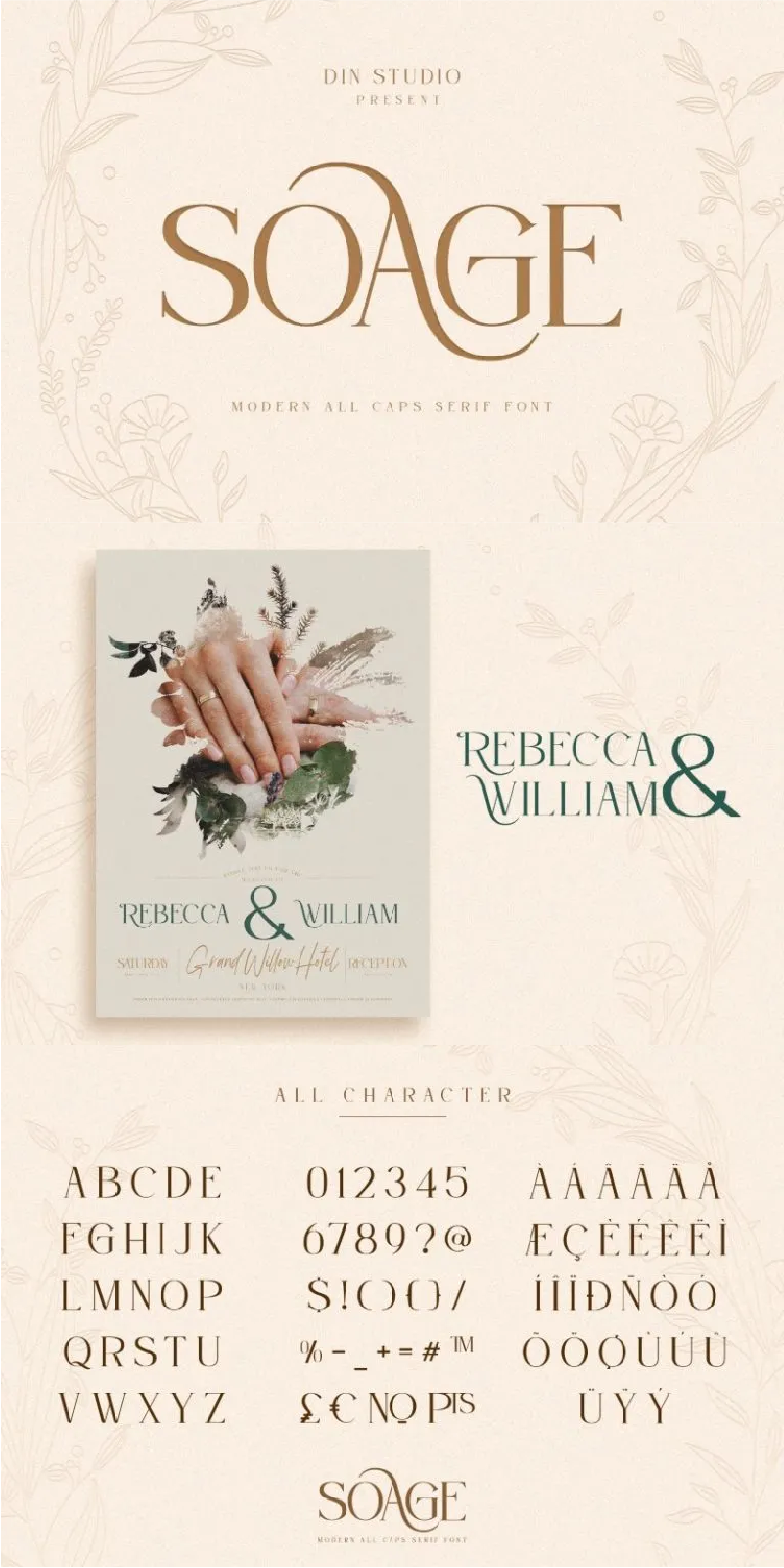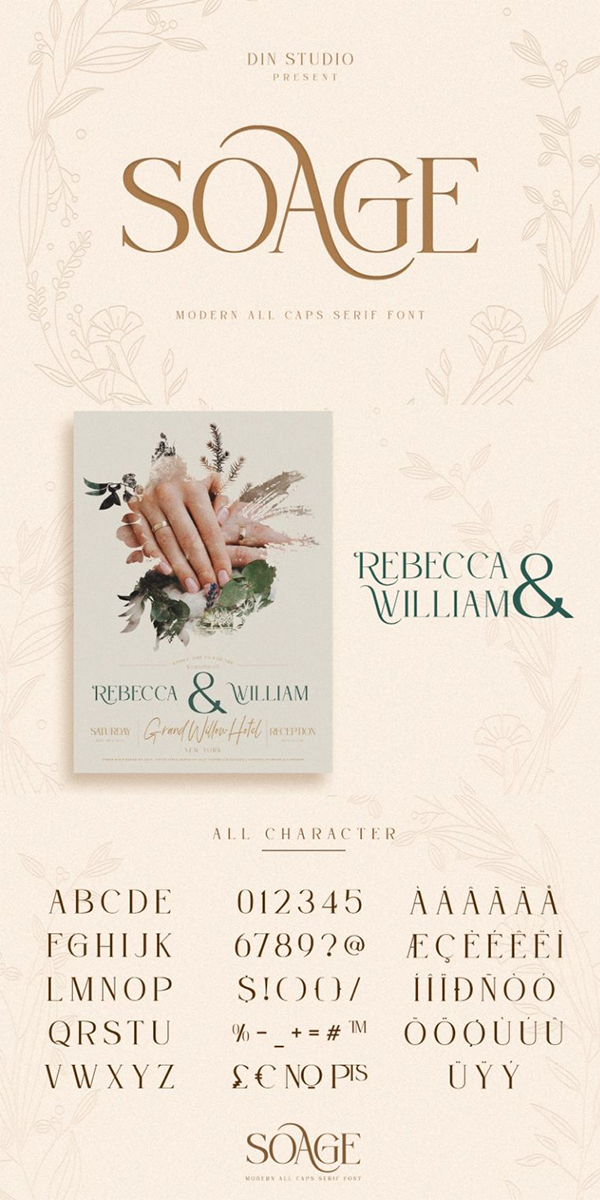
Soage Font
About Soage
Soage is modern serif font. Made for any professional project branding. It is the best for branding, printing, wedding and quotes. Every letter has a unique and beautiful touch. See the previews above to get some inspiration on how you can use them. Enjoy the font!